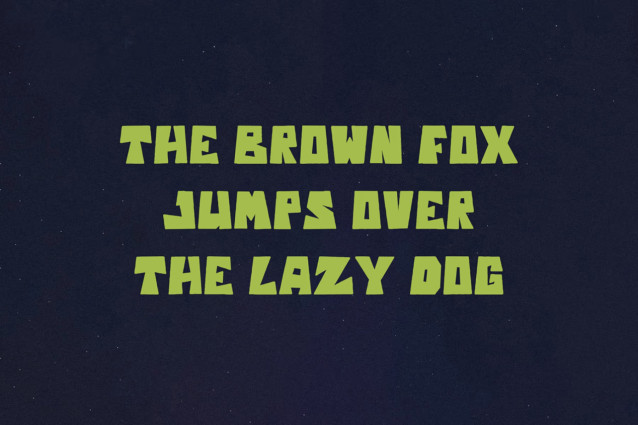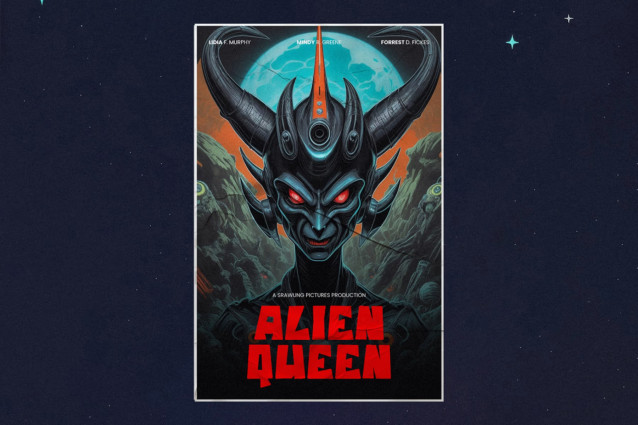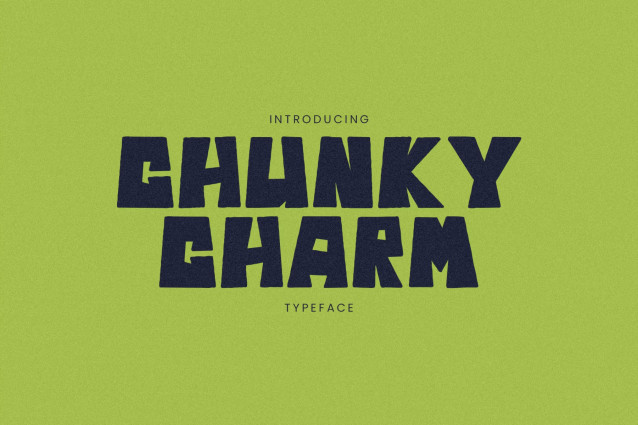
Chunky Charm Font
Chunky Charm Font is a bold, blocky display font characterized by its heavy, hand-carved appearance and irregular geometric shapes. The letterforms feature sharp, angular cuts that give the typeface a raw, energetic personality.
Best suited for fantasy and sci-fi movie posters, game titles, comic book covers, and retro-themed event branding. It works exceptionally well for t-shirt graphics, packaging, and bold headlines where a rugged, adventurous tone is needed.